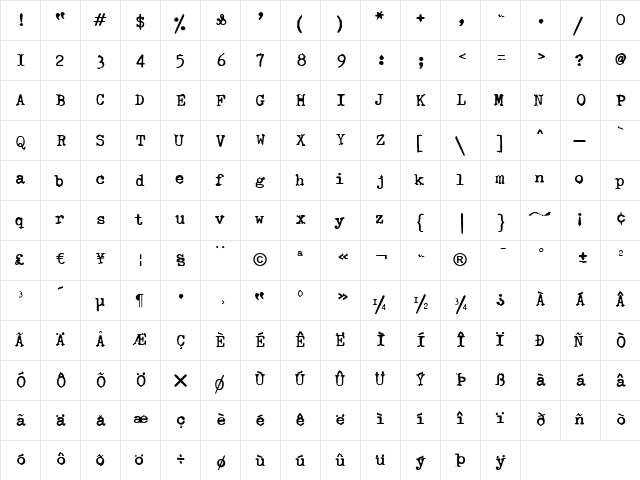
LinotypeTypo American Regular
| Foundry | Linotype Library GmbH or ist affiliated Linotype-Hell companies |
LinotypeTypo American is a composed and adaptable typeface that performs quietly and consistently across a wide range of design contexts.